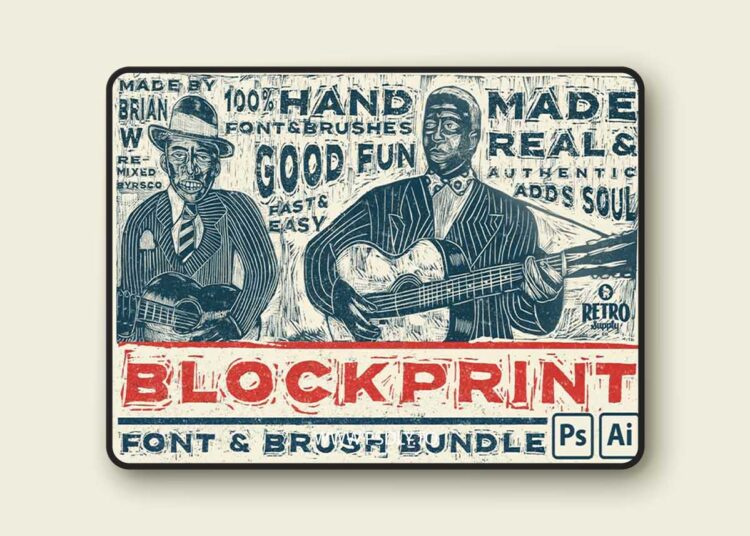
Retrosupply – Blockprint Font & Brush Pack for Adobe Illustrator and Adobe Photoshop
• Create authentic block print style effects in Photoshop and Illustrator with this collection of brushes and a handy font, all created from a real hand cut block print.
• 1 Blockprint Font made from a real hand cut block print
• 26 Blockprint Font Standard Characters
• 55 Blockprint Font Number & Punctuation Characters